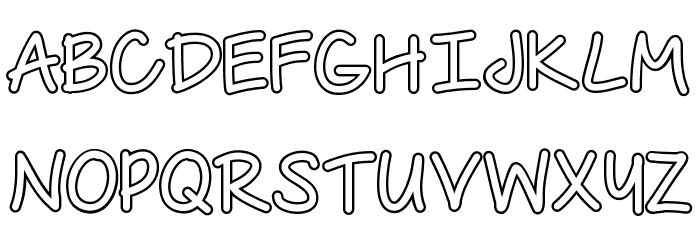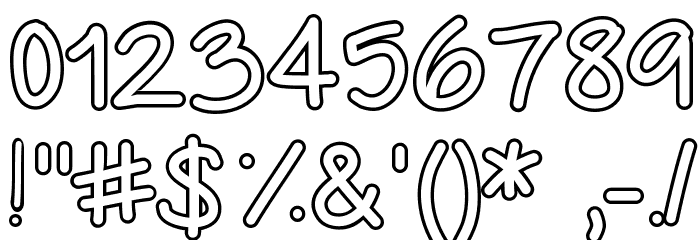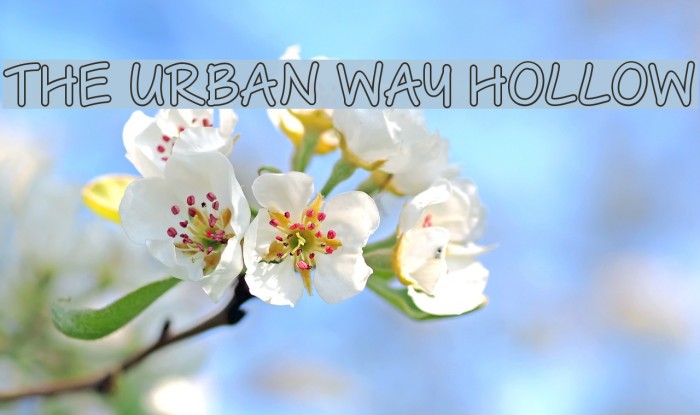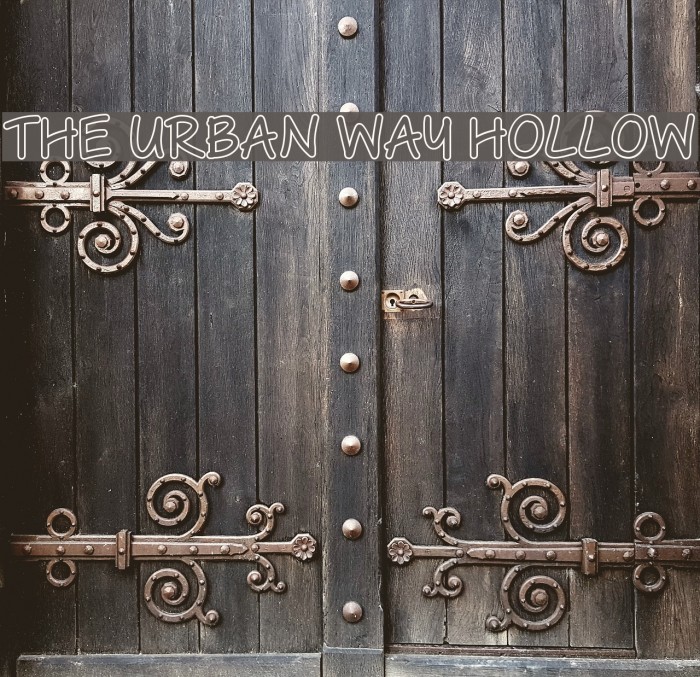
The Urban Way Hollow Font
This playful and bold font features hollow, rounded letters that exude a casual and friendly vibe. The characters are outlined with a consistent stroke, giving them a distinct and eye-catching appearance. The uppercase and lowercase letters maintain a uniform style, with smooth curves and a slightly informal touch. The numerals and special characters follow the same design principles, ensuring a cohesive look across all elements. This font is perfect for projects that require a fun and approachable aesthetic.
A playful, hollow, and rounded font with a casual vibe.
- Proposed Projects: Ideal for children's books, playful branding, posters, and casual invitations.
- Overall Style: Casual